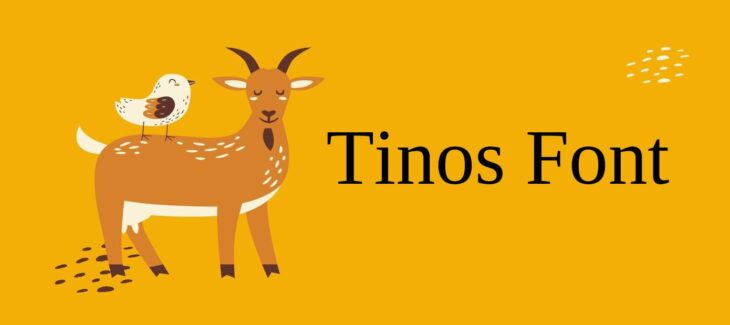
The Tinos Font family belongs to the Serif font family. Steve Matteson, the designer, created this typeface in the first place. This font style was created to complement the Times New Roman font style. The texture of this design is clean and easy to read.
This textured style makes it easier to read on a computer screen. This font style is divided into four families: Regular, Italic, Bold, and Bold Italic, with each family including roughly 2228 number characters and 2583 glyphs. As a result, it can be used on a variety of design platforms.
Who Can Use Tinos Font?
This wonderful typeface has a very attractive and distinctive texture that has caught the attention of many designers all around the world. As a result, many designers are employing this typeface to create beautiful and original designs.
This font is also using in a number of official documents. Many people are utilizing this typeface. This typeface is using in their self-reading article. This font style is also using to create presentations by users.
The heavyweight style from its family is also using for heading purposes in assignments, presentations, articles and also using by many companies for front heading displays for their magazines. This unique style will be fit perfectly for creating invitation cards. This typeface will also become very useful for writing on websites.
How Does Tinos Font Family Appear?
| Name | Tinos Font |
| Designer | Steve Matteson |
| Date Released | 2019 |
| Category | Serif |
What Does Tinos Font Family Includes?
What Type of Font Is Tinos Font?
Tinos Font family is a category of Serif type. This typeface was originally designed by the designer Steve Matteson. This font style is designed specially to make pair with Times New Roman font style.